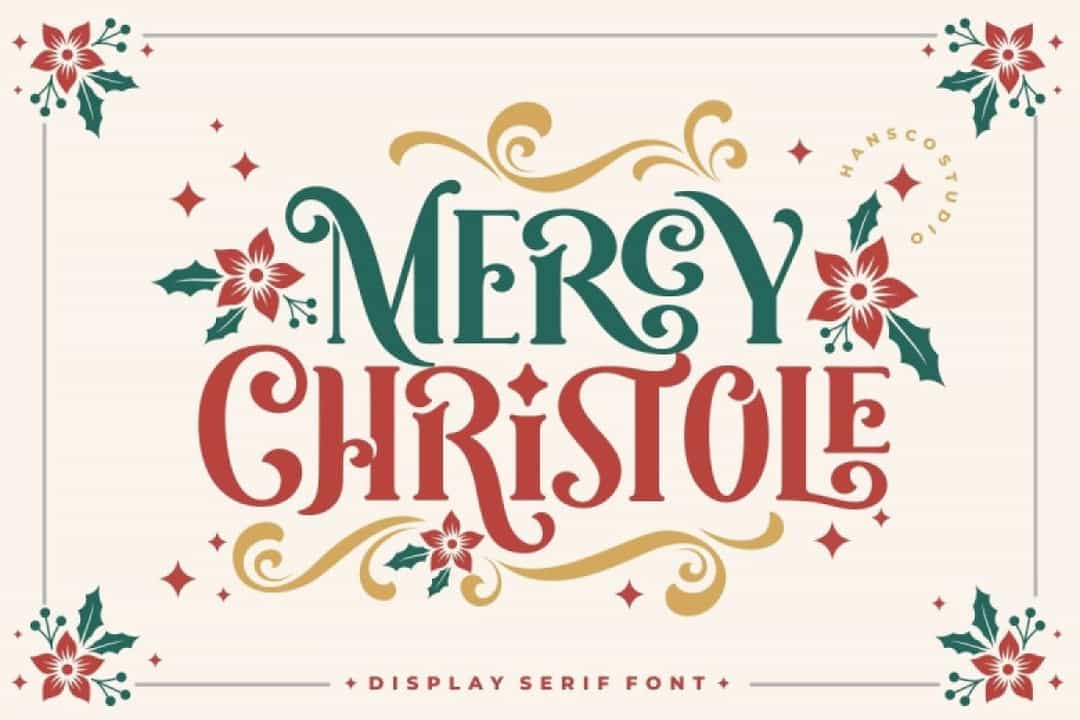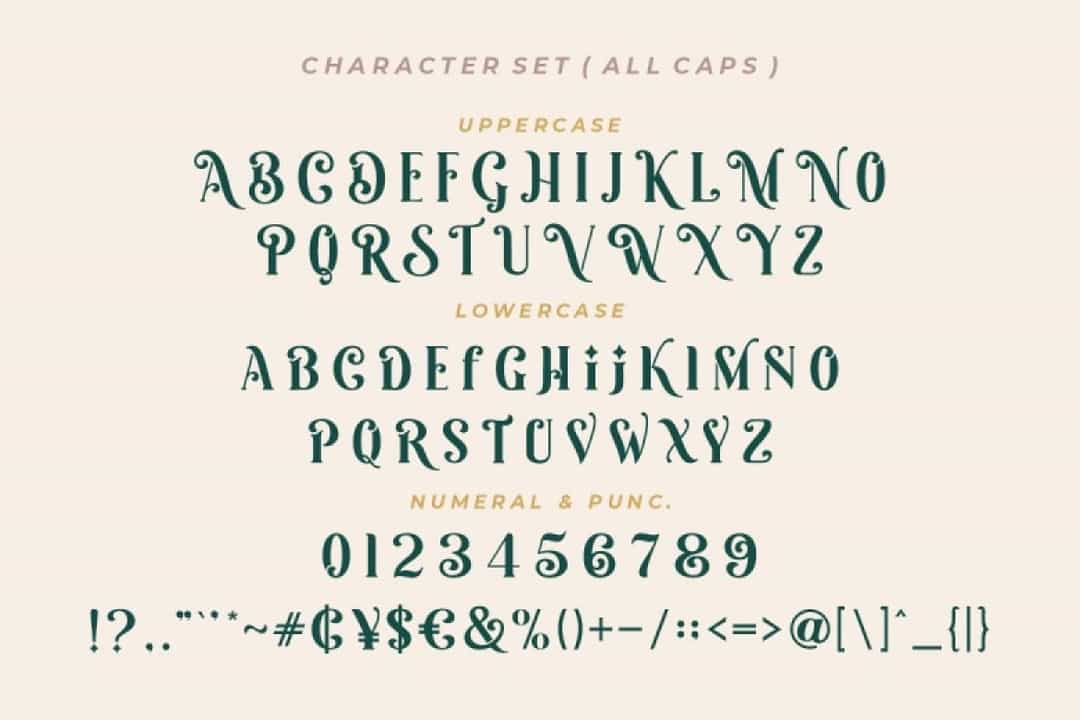
Discover Mercy Christole Font, part of the Serif Display collection—a versatile and unique font perfect for adding a personal touch to your projects. Download it for free and enjoy crafting designs with style, from invitations to social media posts. This font is available exclusively for personal use, giving you the freedom to create without limits. Unlock your creativity with Mercy Christole Font today!
Mercy Christole is an e-syntax serif font with distinctive curvy lines that makes for an eye-catching design element. Take advantage of this font’s PUA encoded design so that all its glyphs and swashes can be quickly and easily accessed!